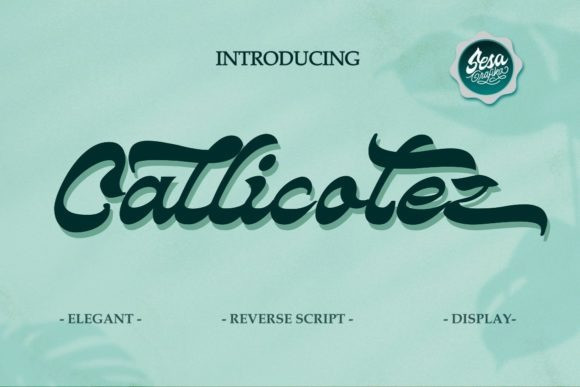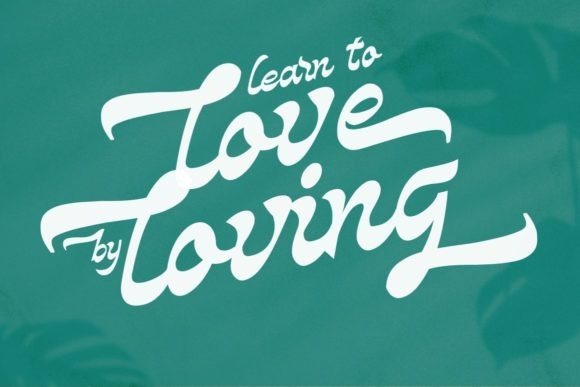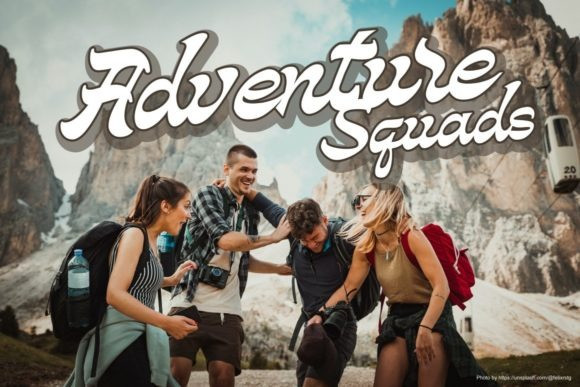
Callicotez Font
Callicotez is a retro styled and unique display font. It embodies playfulness and authenticity and is the perfect choice for any children activity or school project. This font is PUA encoded which means you can access all of the glyphs and swashes with ease!